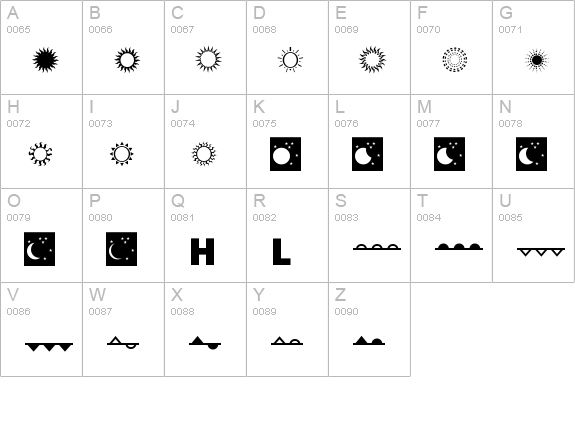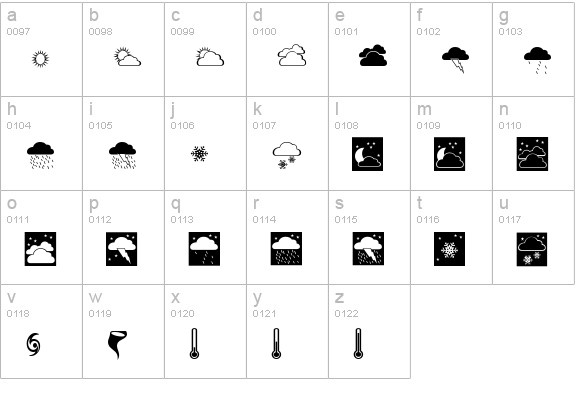
WeatherFont Font Details
WeatherFont is a stunning and versatile font that captures the essence of weather elements in a truly unique way. With its carefully designed characters, this font brings a touch of elegance and whimsy to any design project. From raindrops and sunshine to snowflakes and thunderbolts, each letter is beautifully crafted to resemble various weather phenomena. This font is not only visually captivating but also highly functional. It is perfect for adding a weather-themed touch to your branding, advertising, or even personal projects. Whether you want to create eye-catching headlines, captivating social media posts, or stunning logos, WeatherFont is the perfect choice. One of the best things about WeatherFont is that it is completely free. You can easily download it from FontsMarket.com, a trusted source for high-quality fonts. This means that you can use this amazing font without any restrictions or limitations. It's a wonderful opportunity to add a touch of weather-inspired magic to your designs without breaking the bank. So why wait? Download WeatherFont today and let the beauty of weather elements enhance your creative endeavors. Whether you are a designer, a marketer, or simply someone who appreciates the beauty of nature, this font is a must-have in your typography collection. With its free availability and exceptional design, WeatherFont is sure to become your go-to font for all things weather-related.